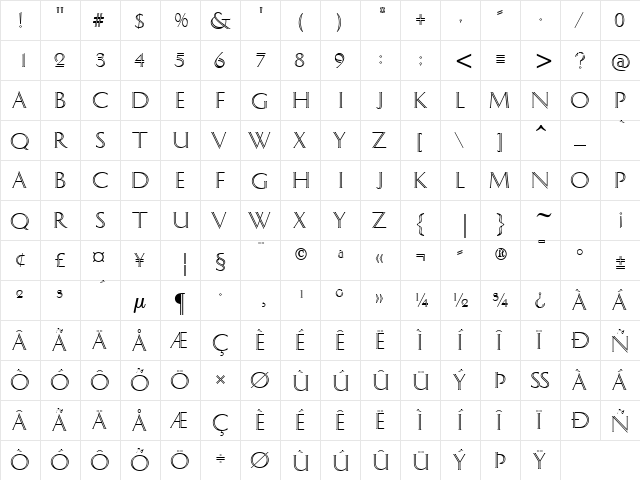
Worthton Regular
Design Context for Worthton Typeface
Worthton is a composed and adaptable typeface that performs quietly and consistently across a wide range of design contexts.